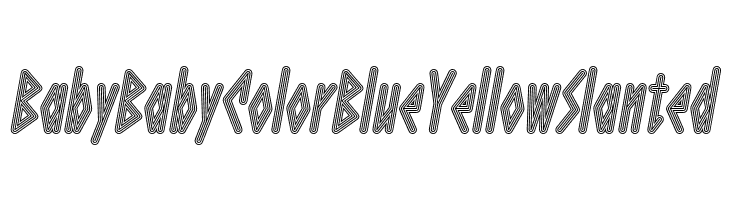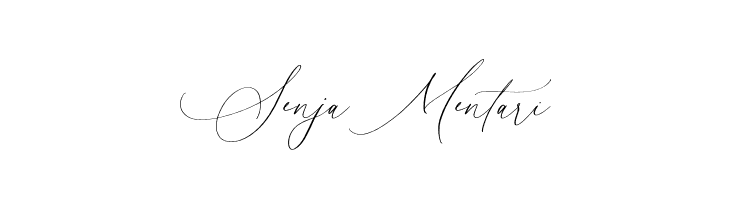
A dynamic handwritten font with fluid strokes and expressive style.
A modern, elegant script font with a flowing, cursive style.
A bold, expressive script font with a modern, handwritten style.
A charming and elegant handwritten script with fluid, flowing letters.
A bold, graffiti-inspired font with sharp, angular lines and an energetic feel.
A bold, playful font with thick, rounded characters and an urban graffiti vibe.
A modern, elegant script font with flowing, cursive letterforms and graceful swashes.
A vintage script font with elegant, flowing lines and a classic charm.
A sophisticated and elegant script font with flowing, connected letters.
A bold, angular font with a geometric and striking design.